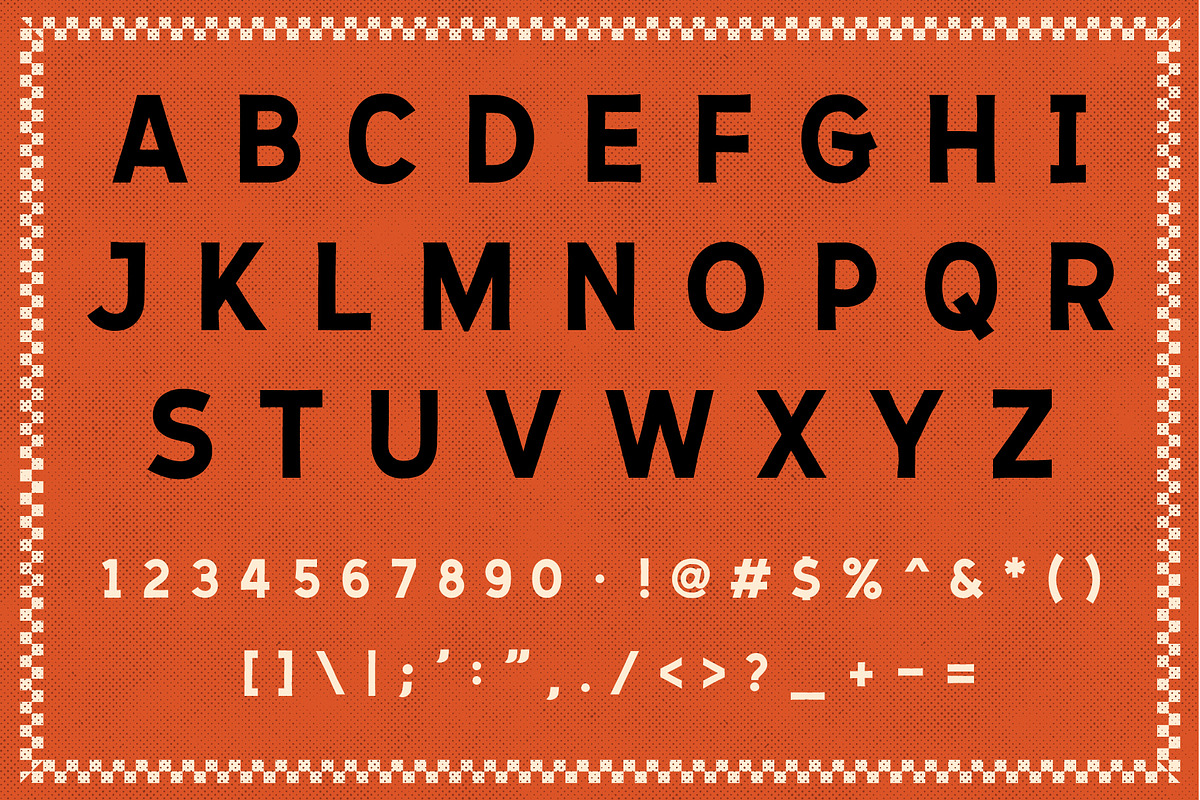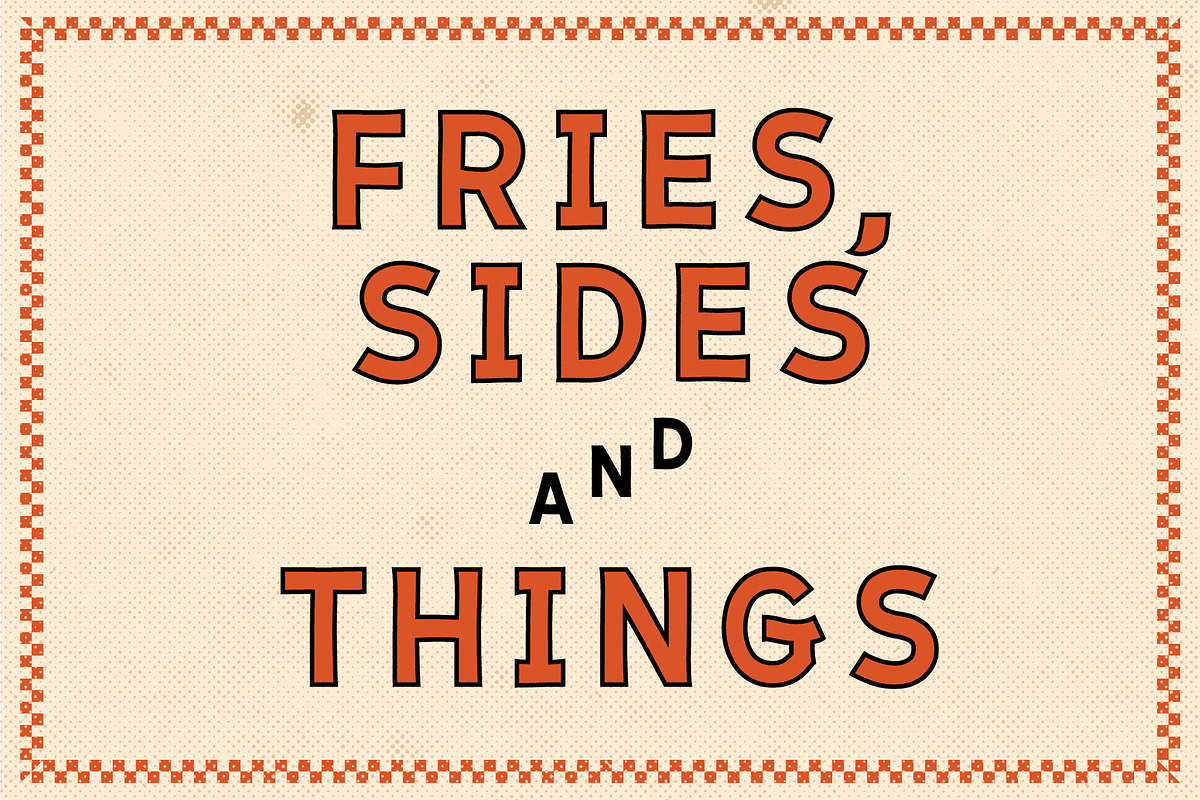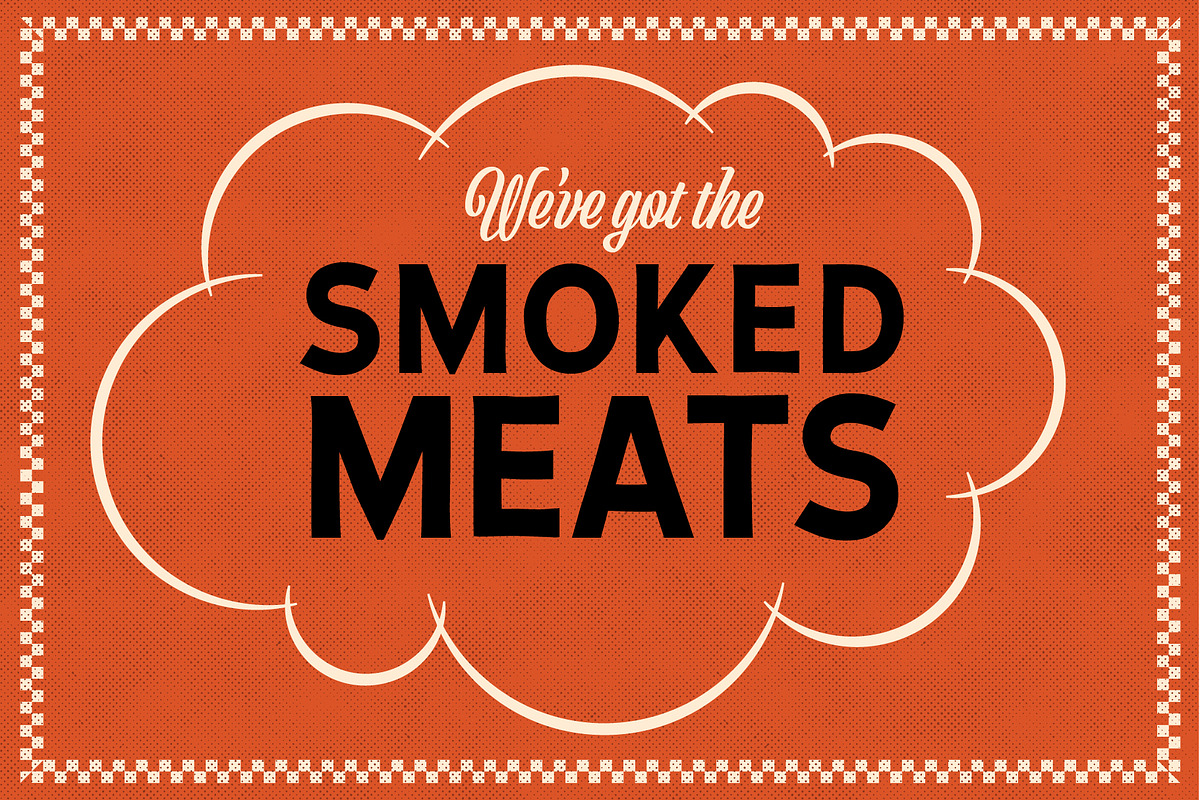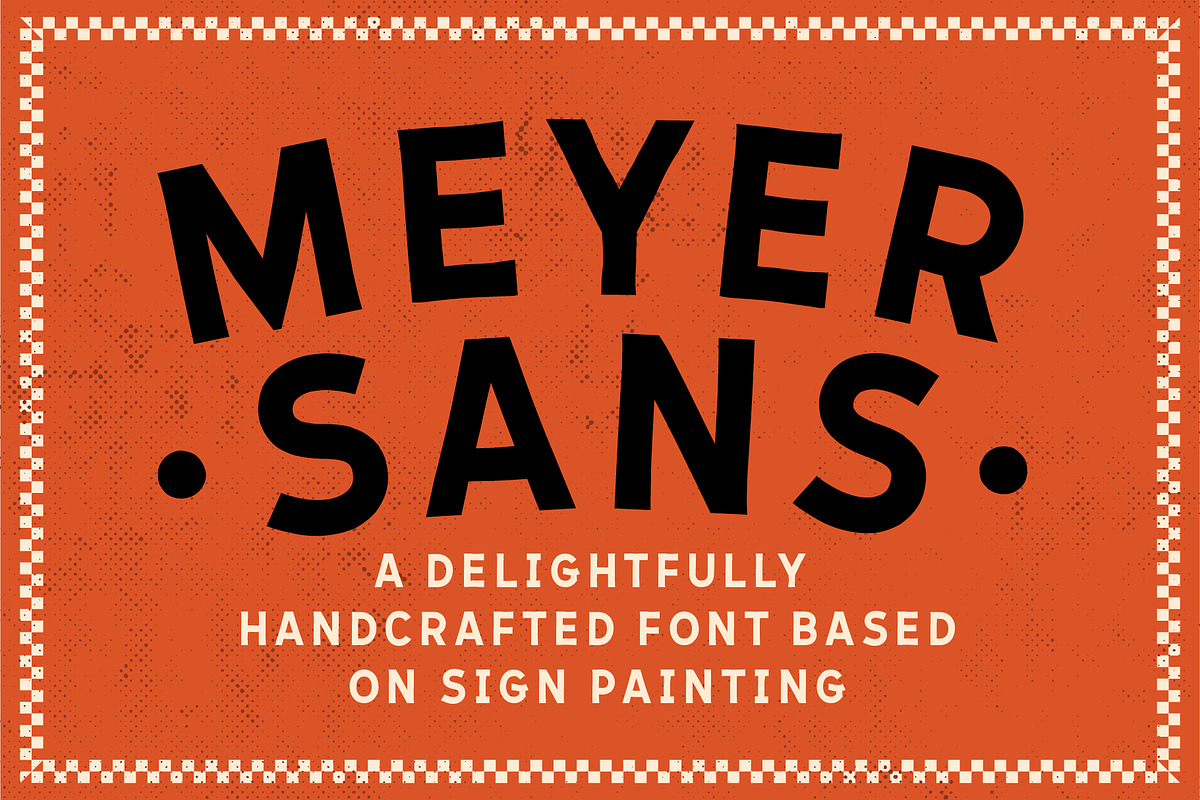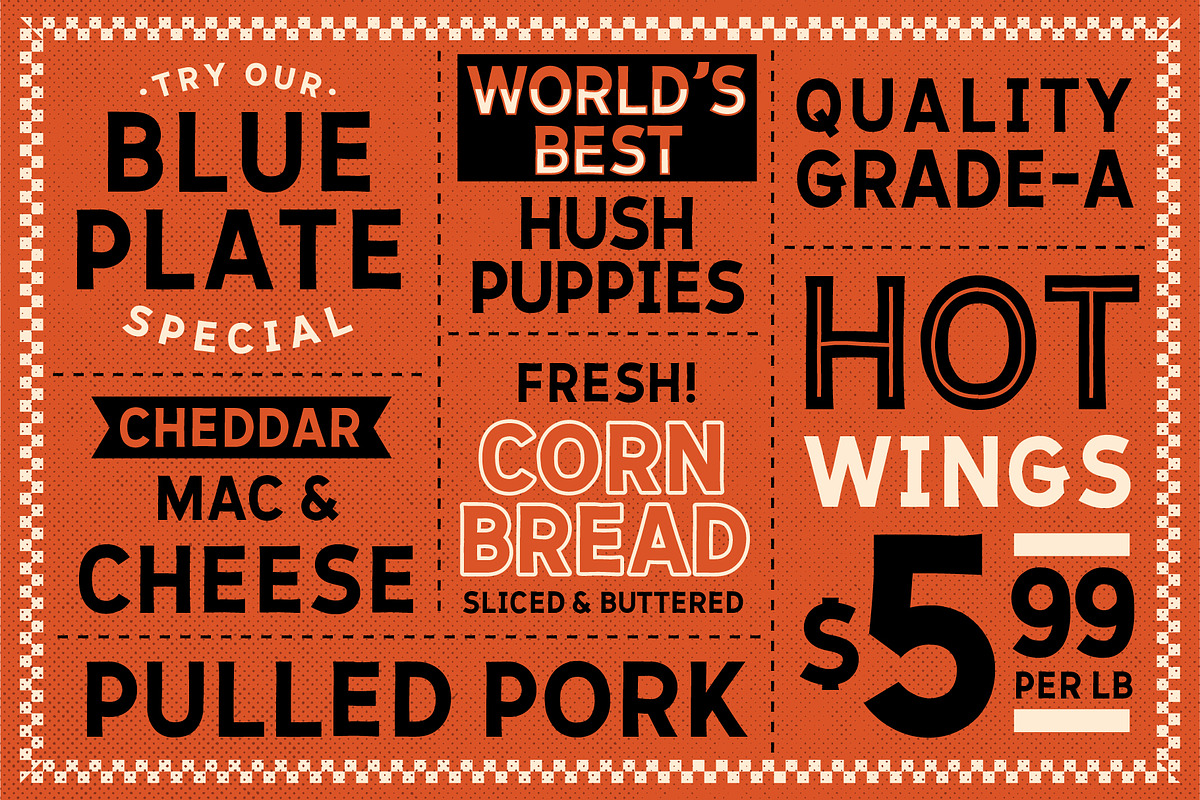
Meyer Sans
Meyer Sans seamlessly captures the timeless elegance of hand-painted signage from a bygone era. Its meticulously crafted letterforms exude an artisanal charm, reminiscent of the skilled brushwork found in traditional showcard artistry. With each character carefully designed to evoke a sense of nostalgia, this font pays homage to the golden age of hand-painted signs, where every stroke tells a story. The subtle imperfections and organic flow of the letters lend an authentic touch, making Meyer Sans a versatile typeface that effortlessly blends vintage aesthetics with contemporary design
Currently, this is a limited glyphs set – containing all caps letterforms A-Z as well as numbers 0-9 and limited punctuation.